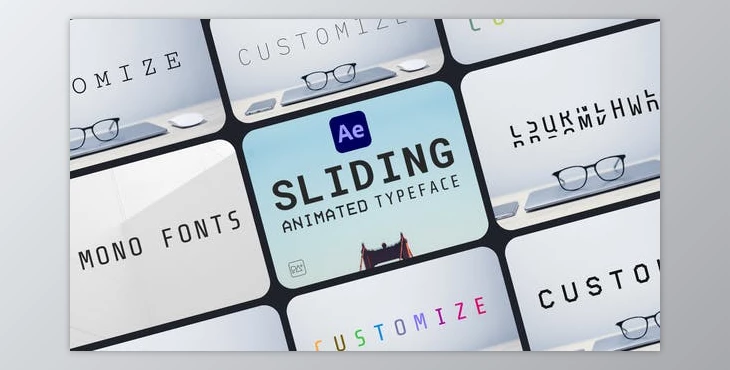
Sliding Animated Typeface For AE VH-45775934: Sliding Animated Typeface for After Effects. This project offers a completely customizable title design template. It can be used for various video projects, including departure boards and travel videos, vacation invites and greeting cards, Vlogs, romance openers, intros, and more.
Some great features of Sliding Animated Typeface:
- You can alter Font properties, Tracking, Transform, and color control.
- The primary color, or any character's color controllers.
- This project is a great fit using Monospaced fonts. Other fonts can have different widths and sizes and could provide a different style.